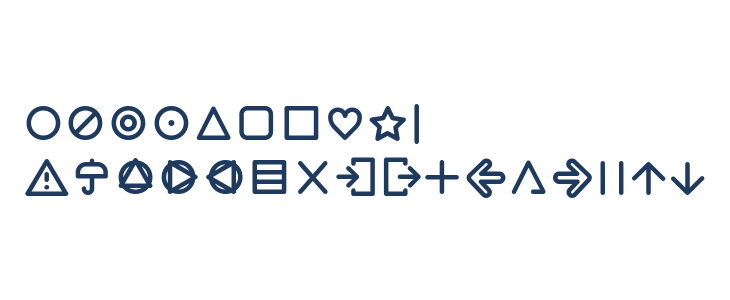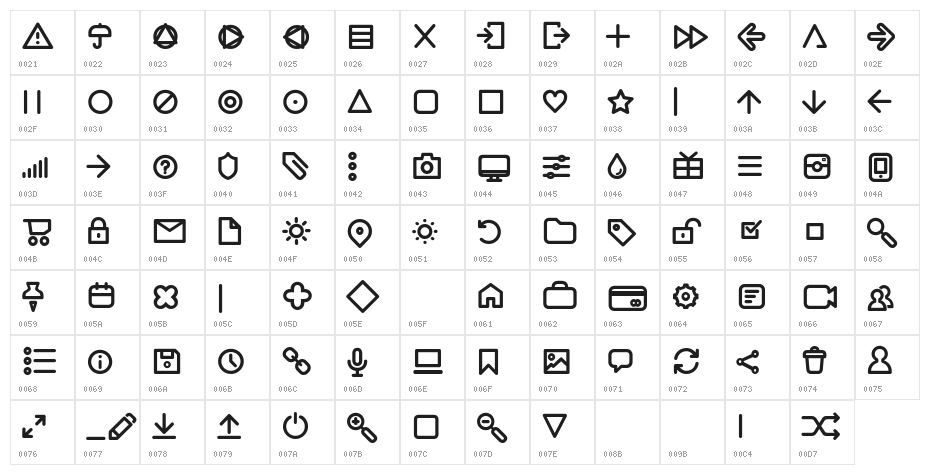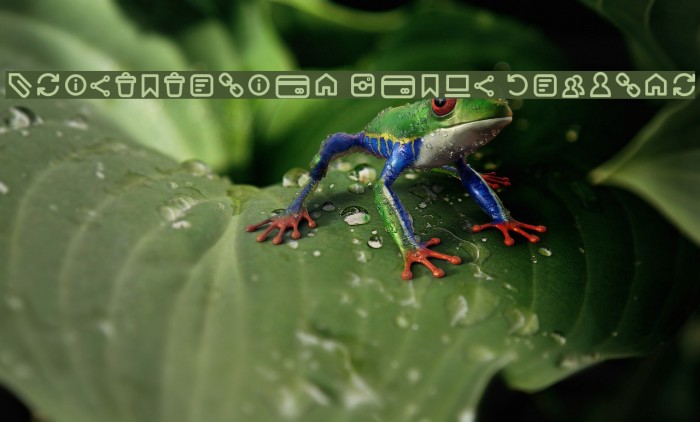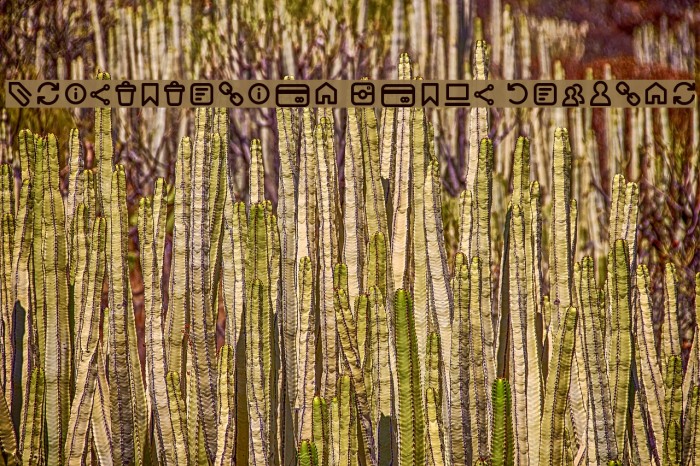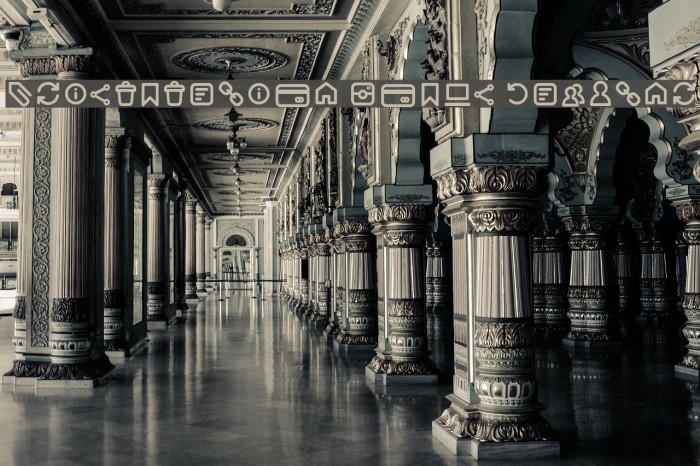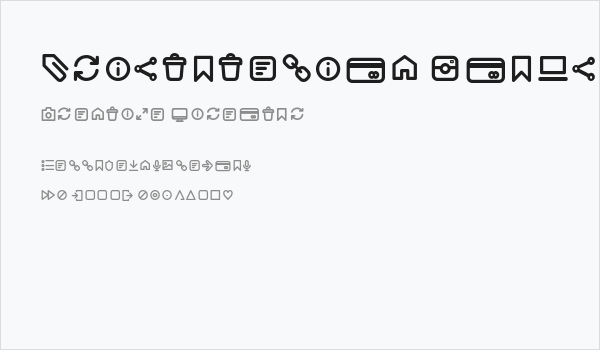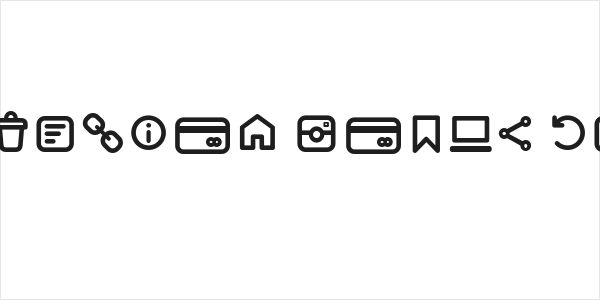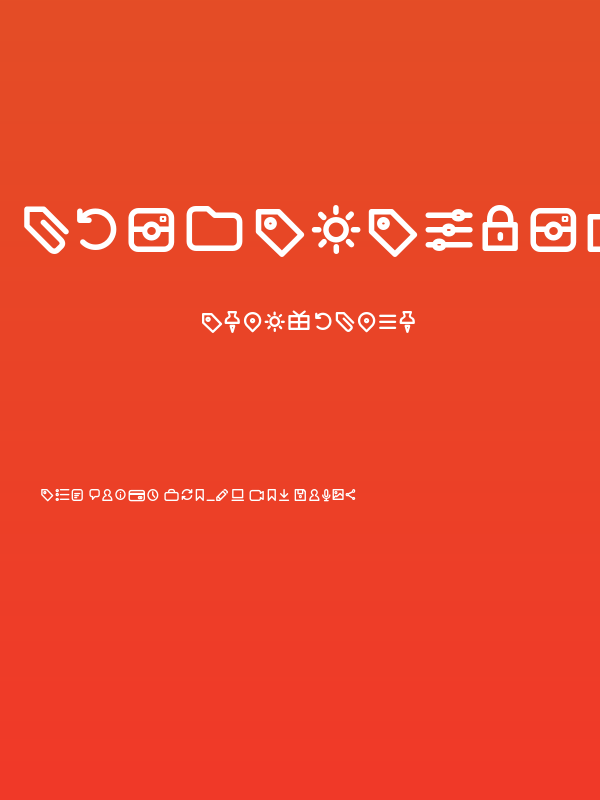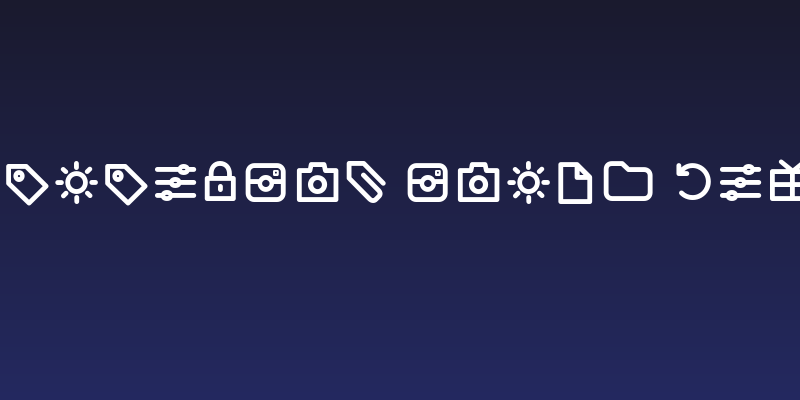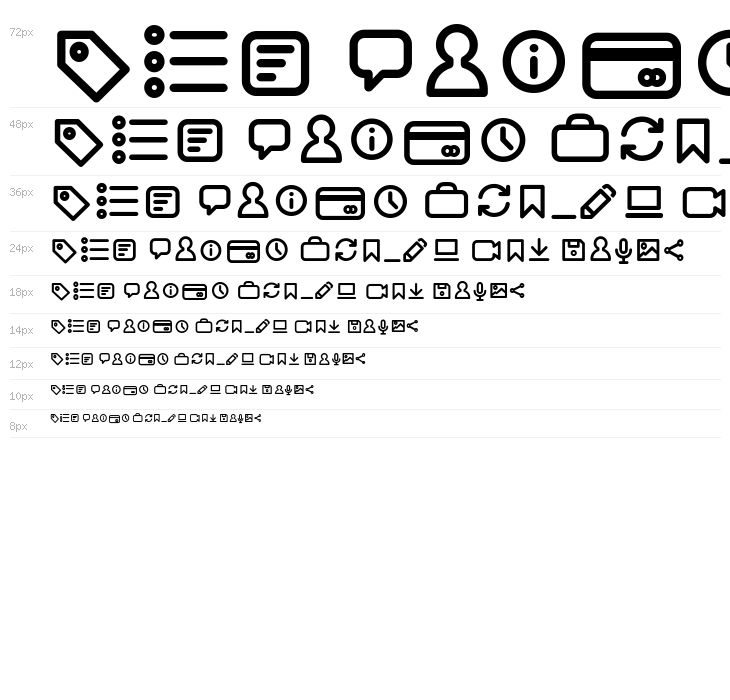
Aristotelica Icons Regular Font
Aristotelica Icons Regular Description
This is a comprehensive set of icons featuring a clean, modern design with a uniform line weight. The icons are outlined, providing a minimalist and sleek appearance suitable for various digital interfaces. Each icon is crafted with precision, ensuring clarity and recognizability even at smaller sizes. The set includes a wide range of symbols, from basic shapes and arrows to more complex representations like devices and user interface elements. The consistent style across all icons makes them ideal for cohesive design projects.
| Use Case | Icons, User Interfaces, Digital Design |
| Proposed Projects | Ideal for user interface design, mobile apps, web design, and digital presentations. |